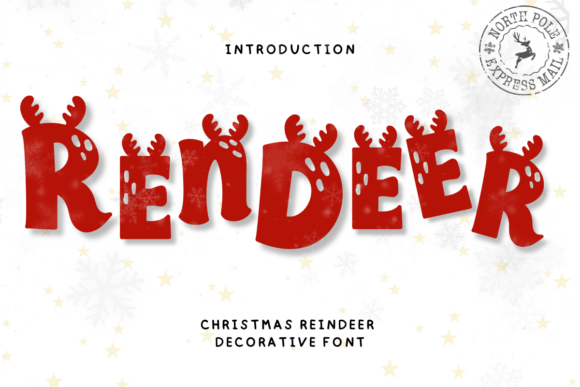
Deck the Halls with the Christmas Reindeer Font
As the snowflakes gently fall outside, and the fireplace crackles with warmth, there’s something magical about the holiday season that sparks our creativity. We find ourselves reaching for our favorite pens and notebooks to jot down festive ideas, nostalgic memories, and heartfelt messages. And that’s where the Christmas Reindeer font comes in – a delightful, decorative style that adds a sprinkle of cheer to any project.
This charming font is not just for the yule-tide season; its versatility makes it a valuable asset for designers. Whether you’re crafting a custom mug design, creating an eye-catching banner, or penning a heartfelt greeting card, the Christmas Reindeer font brings a touch of whimsy and personality to your work. Its unique charm makes every design memorable, and its ease of use makes it a go-to choice for creatives of all levels.
- Unique Characteristics: Includes festive reindeer illustrations, ornaments, and other Christmas-themed elements
Designer Review: Christmas Reindeer Font
As a designer, I’ve had the chance to work with the Christmas Reindeer Font, and here’s my honest take on it.
What works well ✨: The font is undeniably festive and playful, perfect for any holiday project that needs a dash of whimsy. The reindeer illustrations are adorable and will add a personal touch to any design. The font also comes with a range of customization options, making it easy to adjust the size, color, and layout to fit your needs.
Some limitations ⚠️: The font’s design is quite loud and may not be suitable for more subdued or minimalist projects. Additionally, the reindeer illustrations can feel a bit kitschy at times, which may not appeal to designers looking for something more sophisticated. Finally, the font’s file size is relatively large, which can slow down performance in certain applications.
Overall, I think the Christmas Reindeer Font is a fun and creative choice for holiday projects. While it may not be the best fit for every design, it’s a great option for those looking to add some festive flair to their work.
Key Pros and Cons:
- ✨ Fun and playful design
- ✨ Adorable reindeer illustrations
- ⚠️ Loud and kitschy design
The Christmas Reindeer Font is perfect for:
- Creating festive holiday cards and invitations.
- Designing holiday-themed social media graphics and ads.
- Adding a touch of whimsy to your holiday marketing materials.
For best results, use the font in bold or italic styles to add emphasis and visual interest.